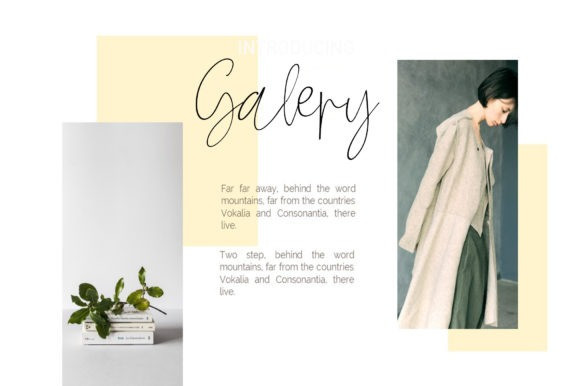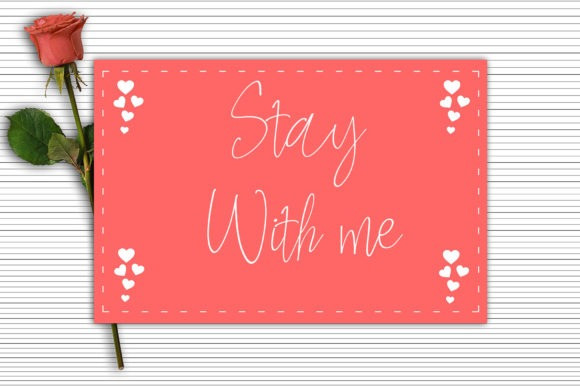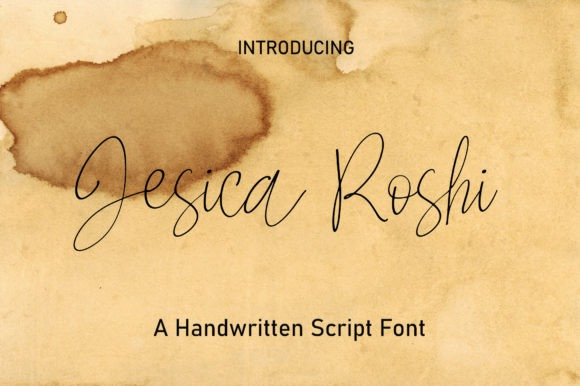
Jesica Roshi Font
Jesica Roshi Font is a delicate, elegant, and flowing handwritten font. It has beautiful and well-balanced characters and as a result, it matches a wide pool of designs. No matter the topic, this font will be an incredible asset to your fonts’ library, as it has the potential to elevate any creation.